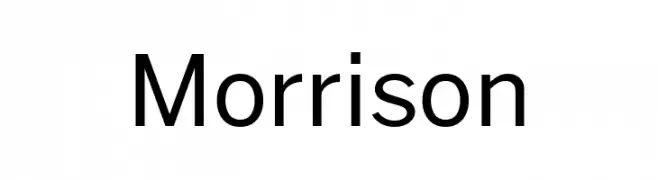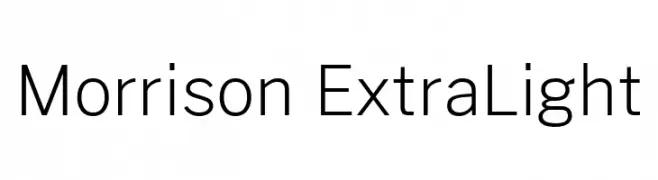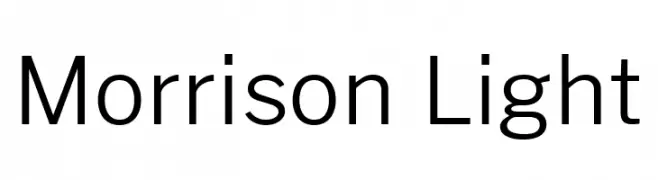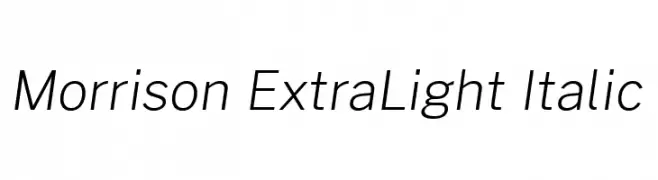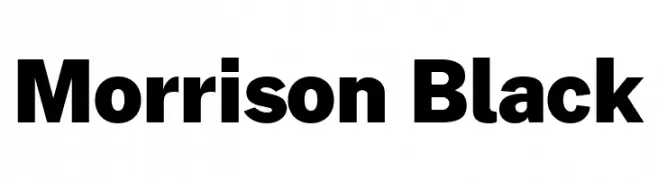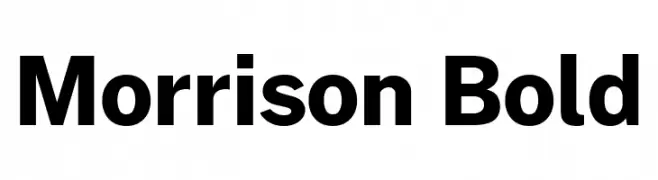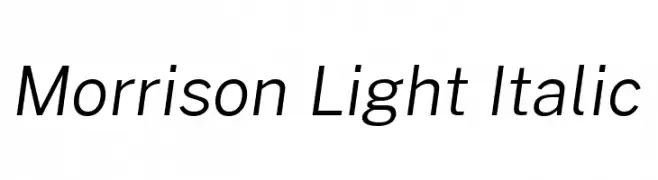
A modern, clean sans-serif font with balanced spacing and consistent stroke width.
A modern, extra light sans-serif font with clean lines and low contrast.
A bold, italicized font with a strong, dynamic presence.
A clean, modern sans-serif typeface with uniform strokes and balanced spacing.
A sleek, modern extra light italic font with elegant slanted characters.
A bold, geometric sans-serif typeface with strong, uniform strokes.
A bold, impactful typeface with uniform strokes and strong presence.
A bold, modern font with strong, thick strokes and excellent readability.
A sleek, semi-bold italic typeface with a modern and elegant style.
A sleek, modern, light italic font with smooth, low-contrast strokes.